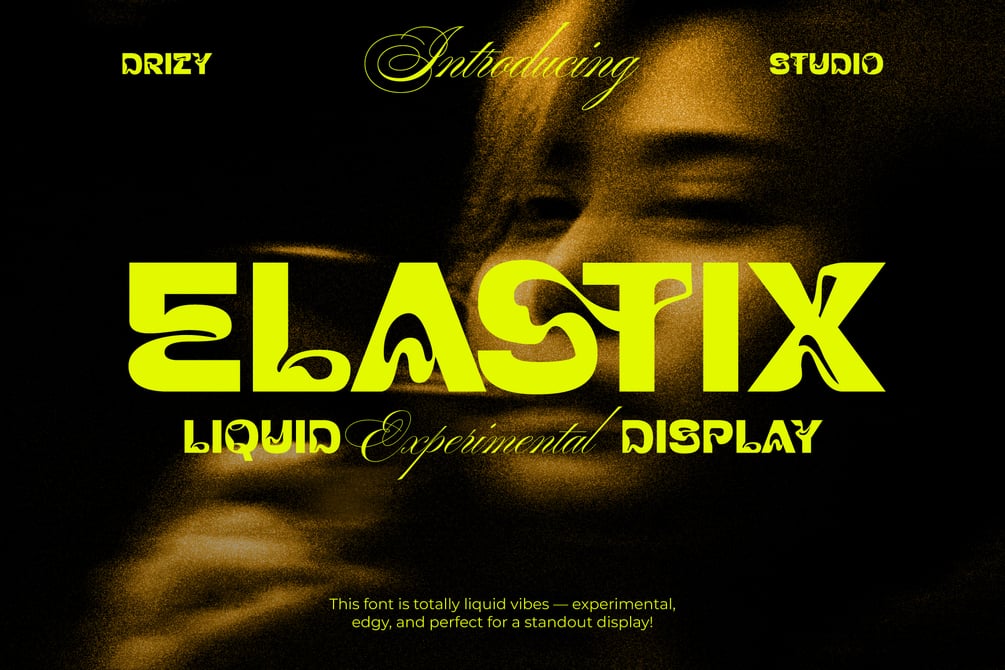
Elastix – Liquid Experimental Font
Elastix is an enchanting and boundary-pushing liquid experimental font that redefines the norms of traditional typography. With its mesmerizing fluidity and dynamic elasticity, Elastix brings a captivating sense of motion to every letterform, creating a visual experience that feels alive and ever changing. Designed for those who dare to think beyond conventional design, this font embodies the essence of liquid motion, seamlessly blending innovation with artistry. Elastix transforms your designs into a stunning interplay of movement and creativity, making each project a masterpiece of modern expression.